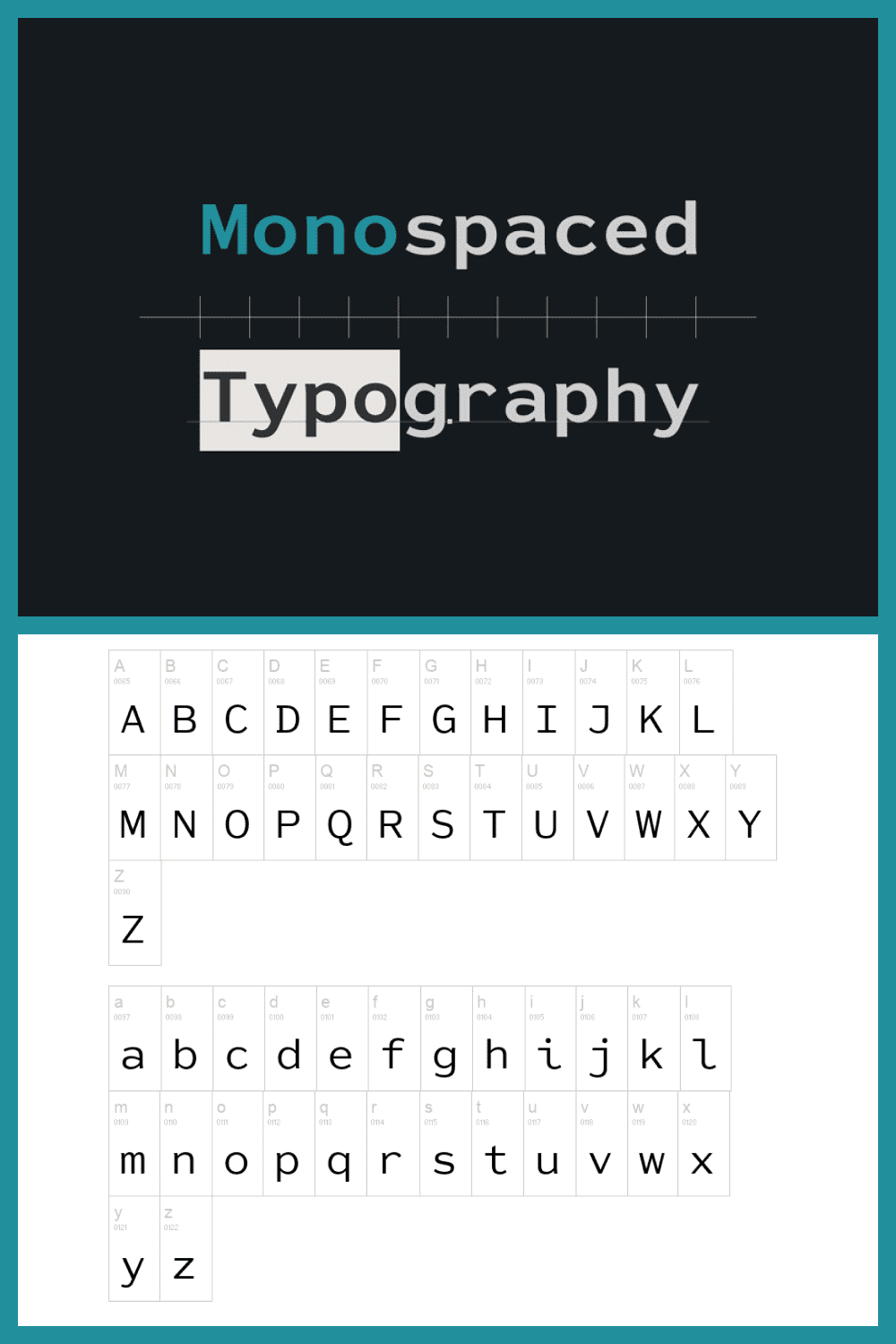
Fonts for Posters. We know that the best typeface is the one that is easy to read. Text reads differently on paper than on a monitor screen. Therefore, the font that is best for printing should not always be used for a website, and vice versa.
Choosing the appropriate script may seem like a simple task that requires very little thought. The best designers spend a lot of time trying to find the best fonts to work with. The reason they are so important to any design project is because they are an aesthetic element; they are also essential for making it easy for people to identify information and perceive content. If the text is too pretentious, you risk making the content difficult to read.
That’s why we have prepared for you a selection of the best fonts for reading that are considered the top choices in the entire digital marketplace. They are easy to perceive, yet they retain style and timelessness, making them ideal for any project’s design work.